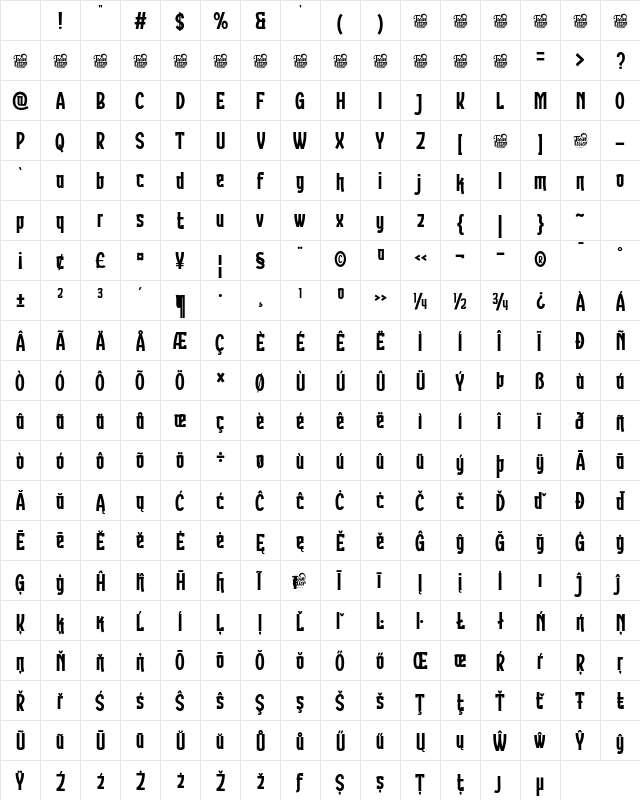
Complete Bandiko trial Regular glyph index. Displaying only characters natively supported by Bandiko trial Regular font.
Bandiko trial is a composed and adaptable typeface that performs quietly and consistently across a wide range of design contexts.